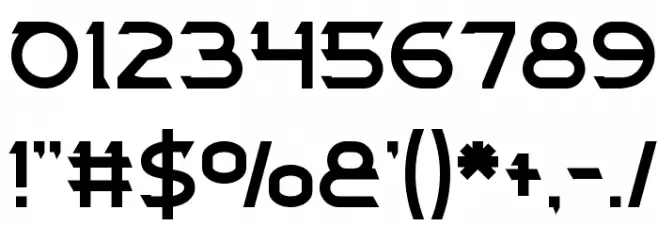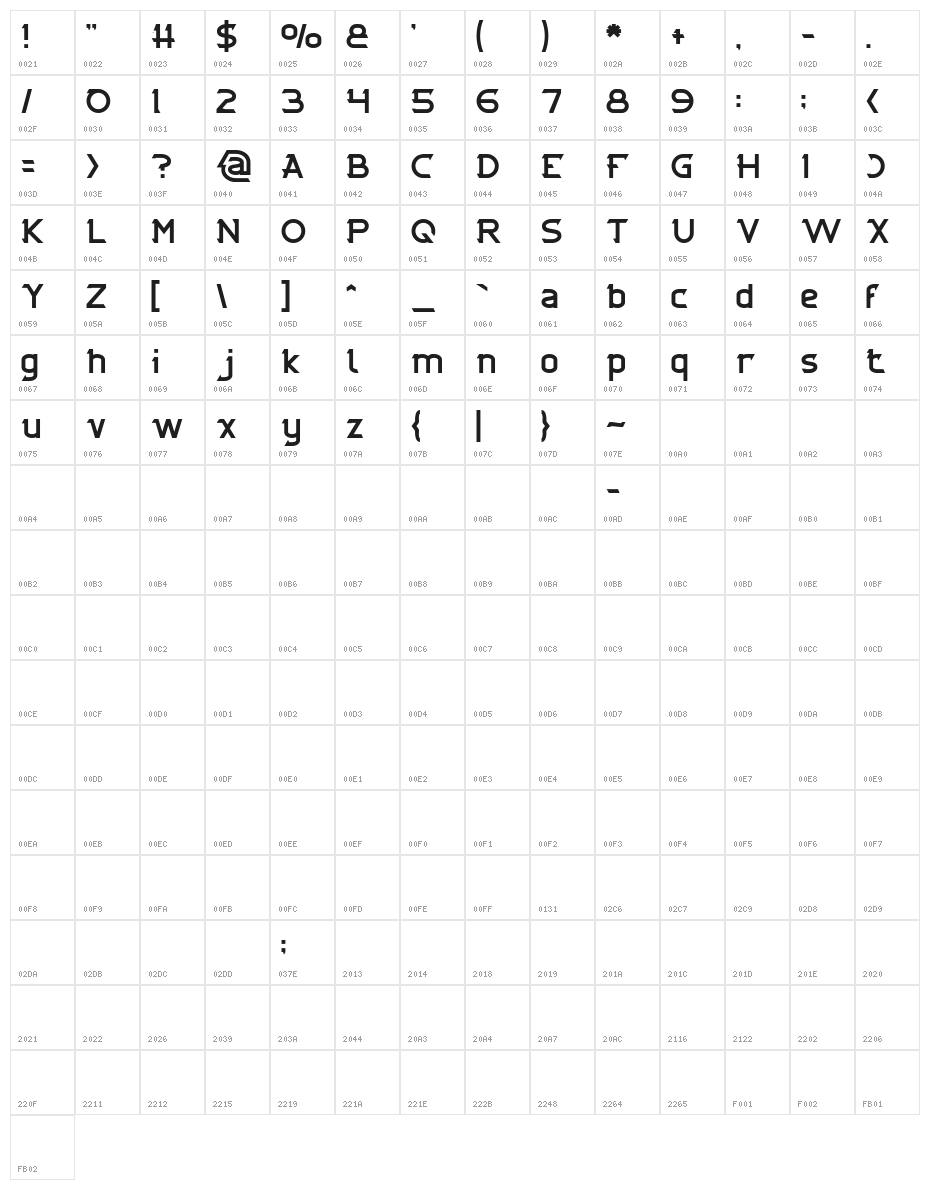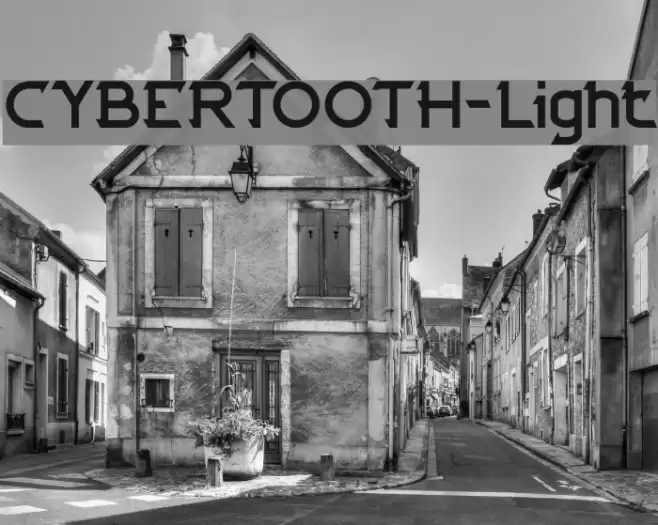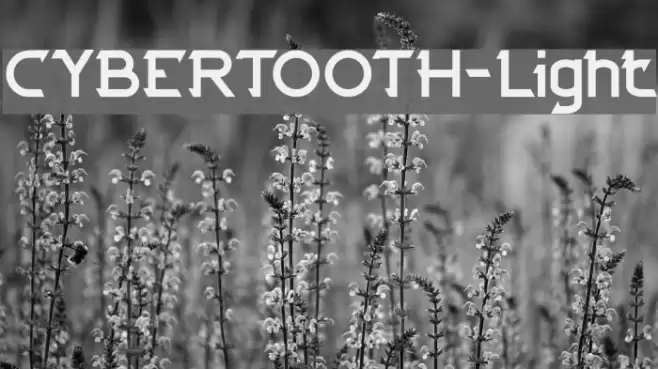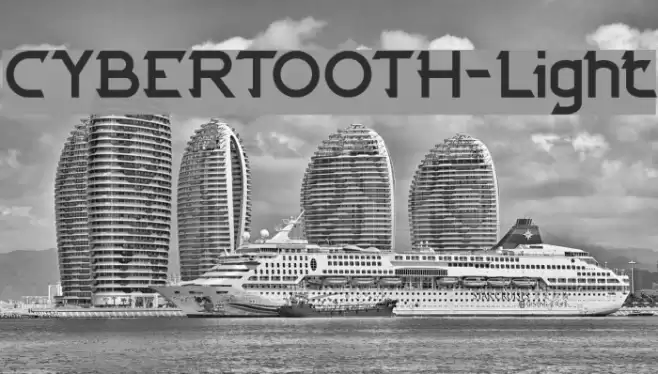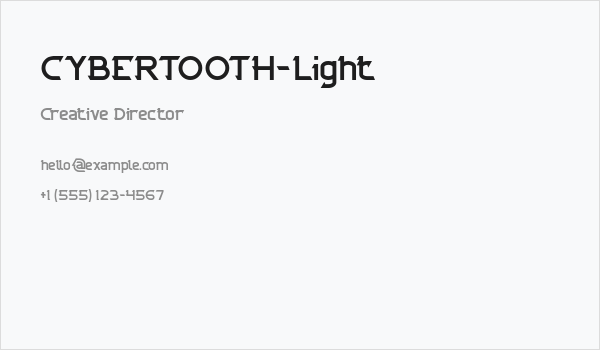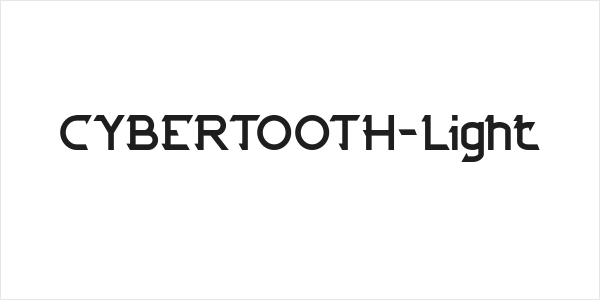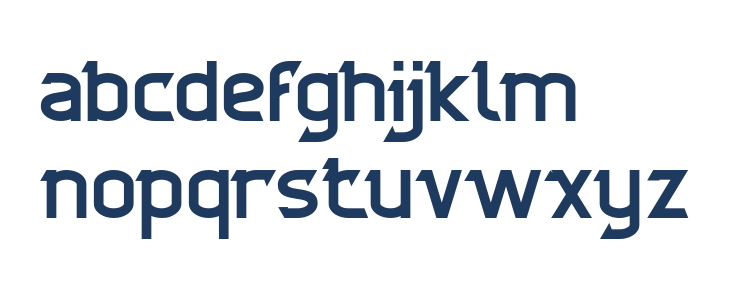
CYBERTOOTH-Light Font
CYBERTOOTH-Light Description
This font features a futuristic and angular design, characterized by sharp edges and geometric shapes. The uppercase letters have a distinct, bold presence with unique cuts and angles that give them a modern, tech-inspired look. The lowercase letters maintain a consistent style, offering a smooth transition between characters. Numbers and special characters follow the same design principles, ensuring uniformity across all glyphs. The overall appearance is sleek and contemporary, making it suitable for projects that require a cutting-edge aesthetic.